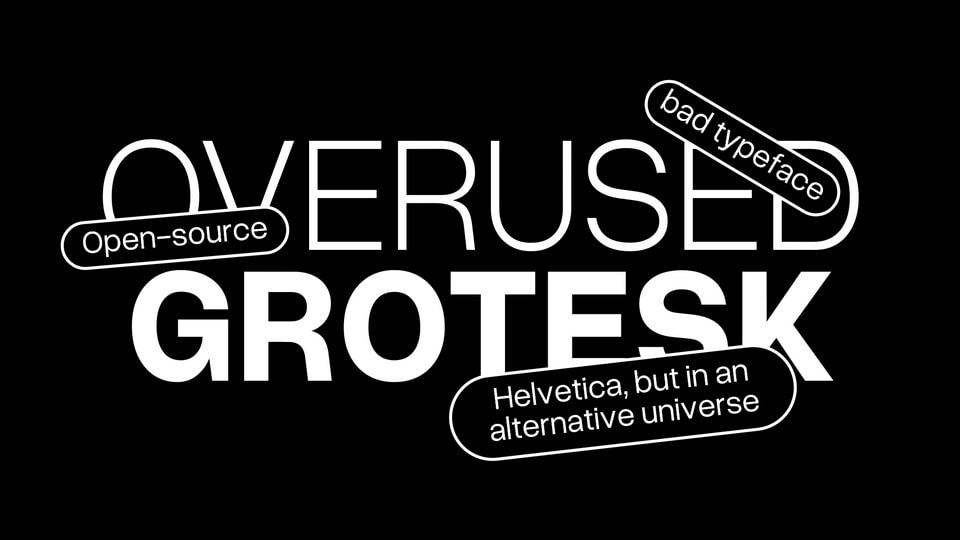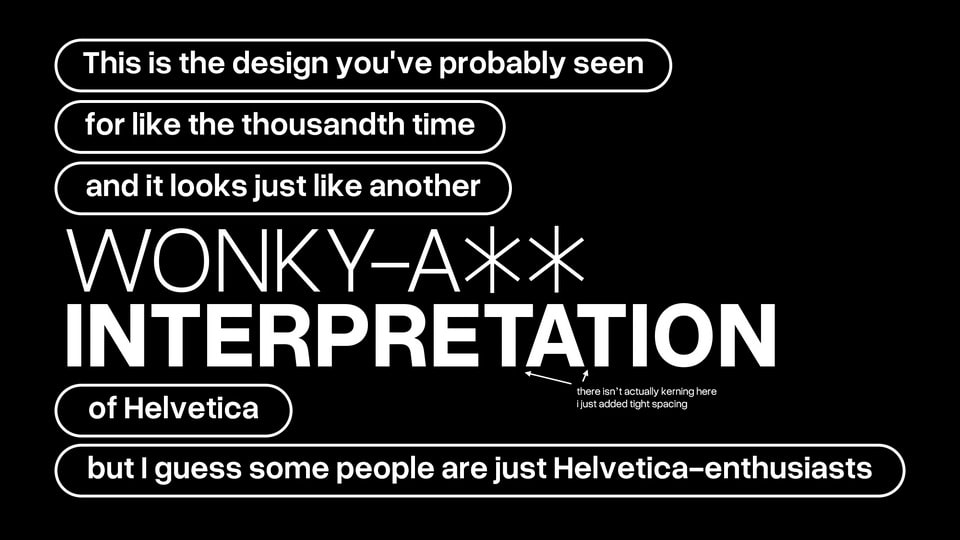
Overused Grotesk is a neo-grotesque sans serif typeface that looks spectacularly like a Helvetica alternative because it is one. It combines clean lines with a sense of efficiency, creating a font that exudes a contemporary and sophisticated appeal.
Overused Grotesk offers a simple and minimalist design, making it suitable for a wide range of applications. Its clarity and legibility ensure that your message is conveyed with precision, making it a reliable choice for both print and digital projects.
Overused Grotesk celebrates the beauty of neutrality, allowing the content to take center stage without overpowering it with excessive ornamentation. Its balanced letterforms and even spacing create a harmonious visual rhythm, making it a go-to font for modern branding, editorial layouts, and web design.